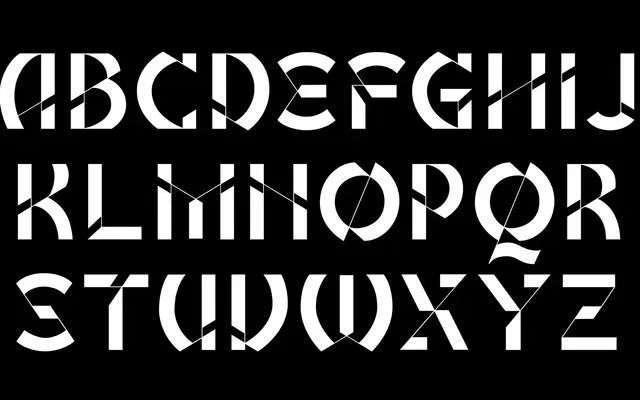
Aegion
A single-weight display typeface drawing on blackletter forms, aimed at heading and title use.
Built around blackletter-derived letterforms recast as a display face, Aegion covers Basic Latin, Latin-1 Supplement and Latin Extended-A, giving it reasonable reach across Western European languages. It ships in one weight only, with no italic or condensed cuts, which limits its versatility to purely titling contexts. At $19.99 it is a low-cost option for packaging, poster or brand work that wants angular, gothic energy without a full blackletter commitment.
Described by the foundry as a display typeface inspired by blackletter style, blending blackletter forms with display-oriented presentation rather than adhering to a traditional blackletter classification.